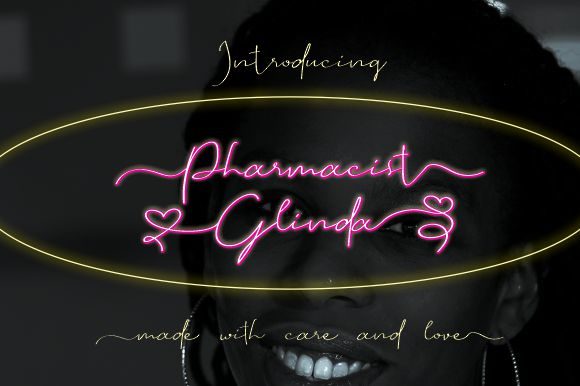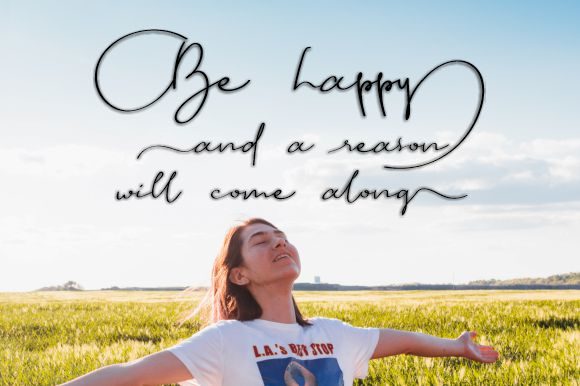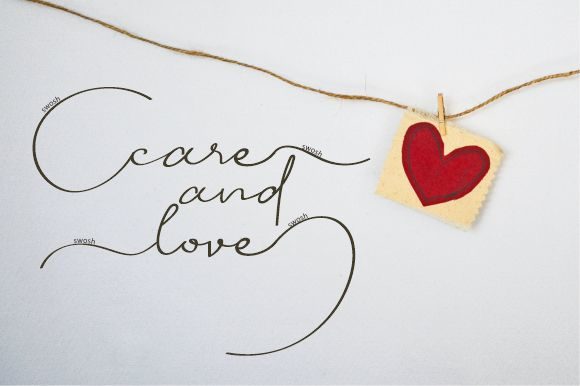
Introduction to Pharmacist Glinda Font
Pharmacist Glinda feels equally charming and elegant.
Whether you’re looking for fonts for Instagram or calligraphy scripts for DIY projects, this font will turn any creative idea into a true piece of art .
Key Features of Pharmacist Glinda Font
Why Choose Pharmacist Glinda Font?
Pharmacist Glinda Font offers exceptional quality and versatility, making it a valuable addition to your design toolkit. Whether you’re creating for personal projects or commercial use, Pharmacist Glinda Font delivers professional results.